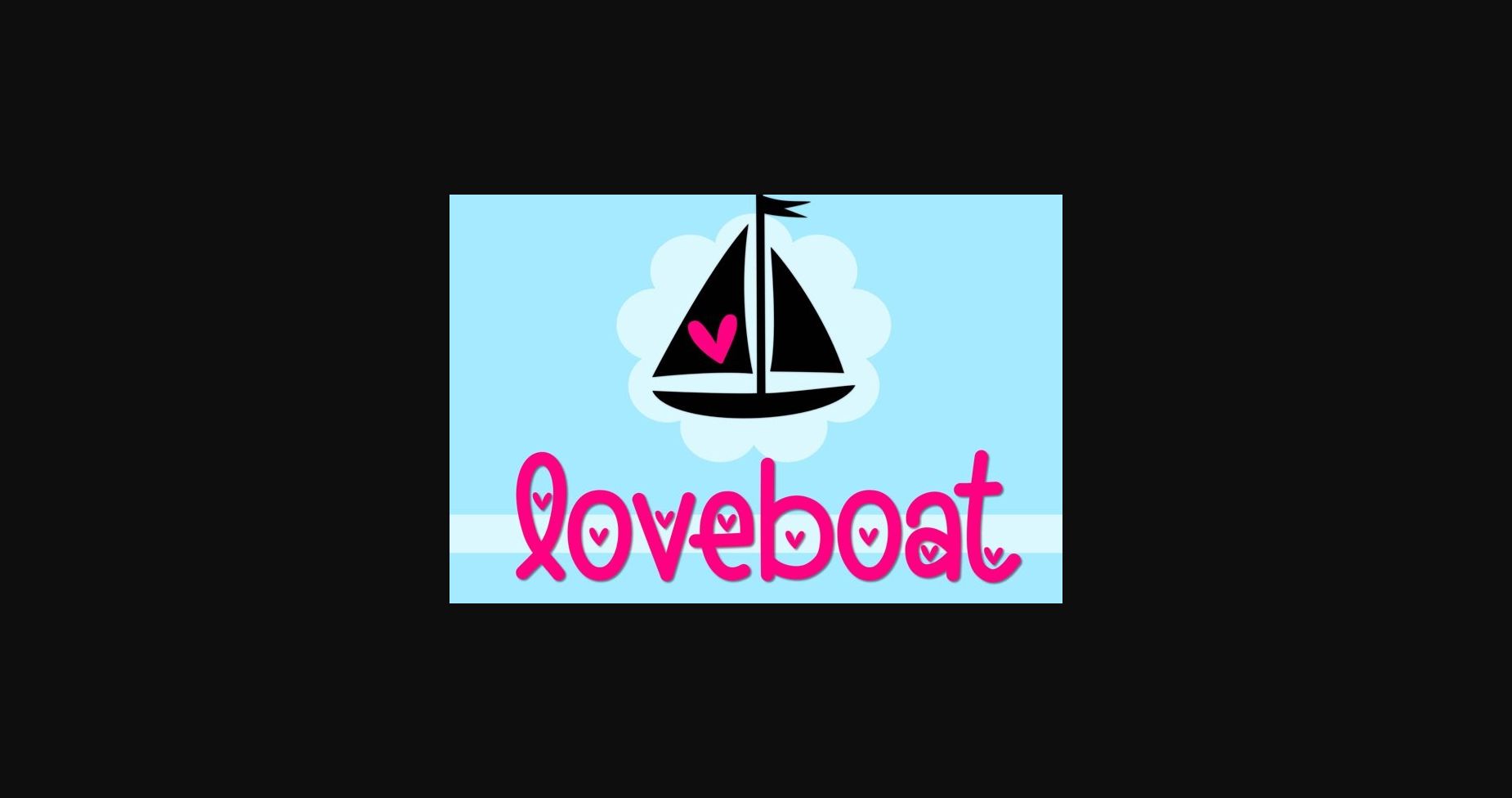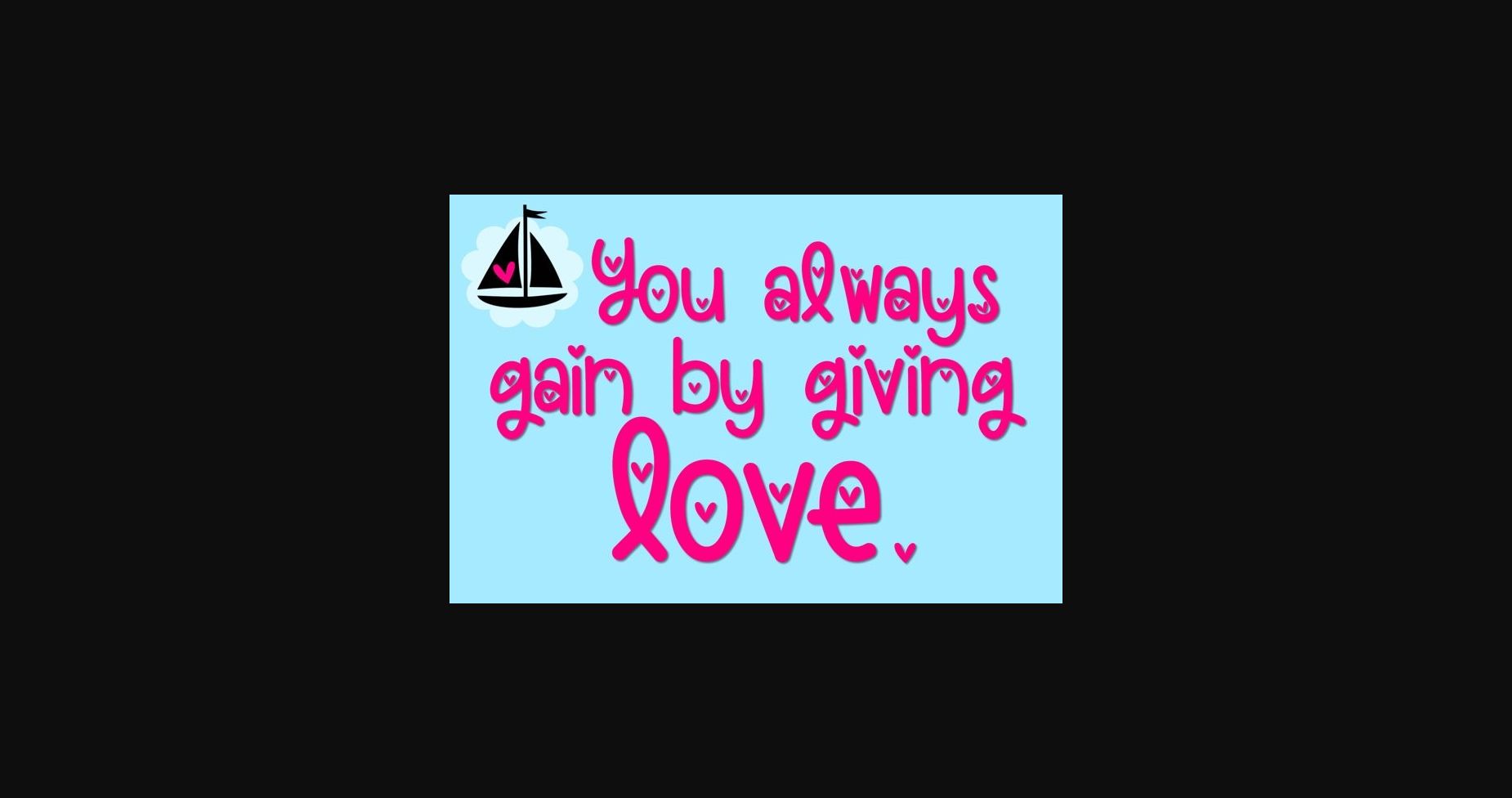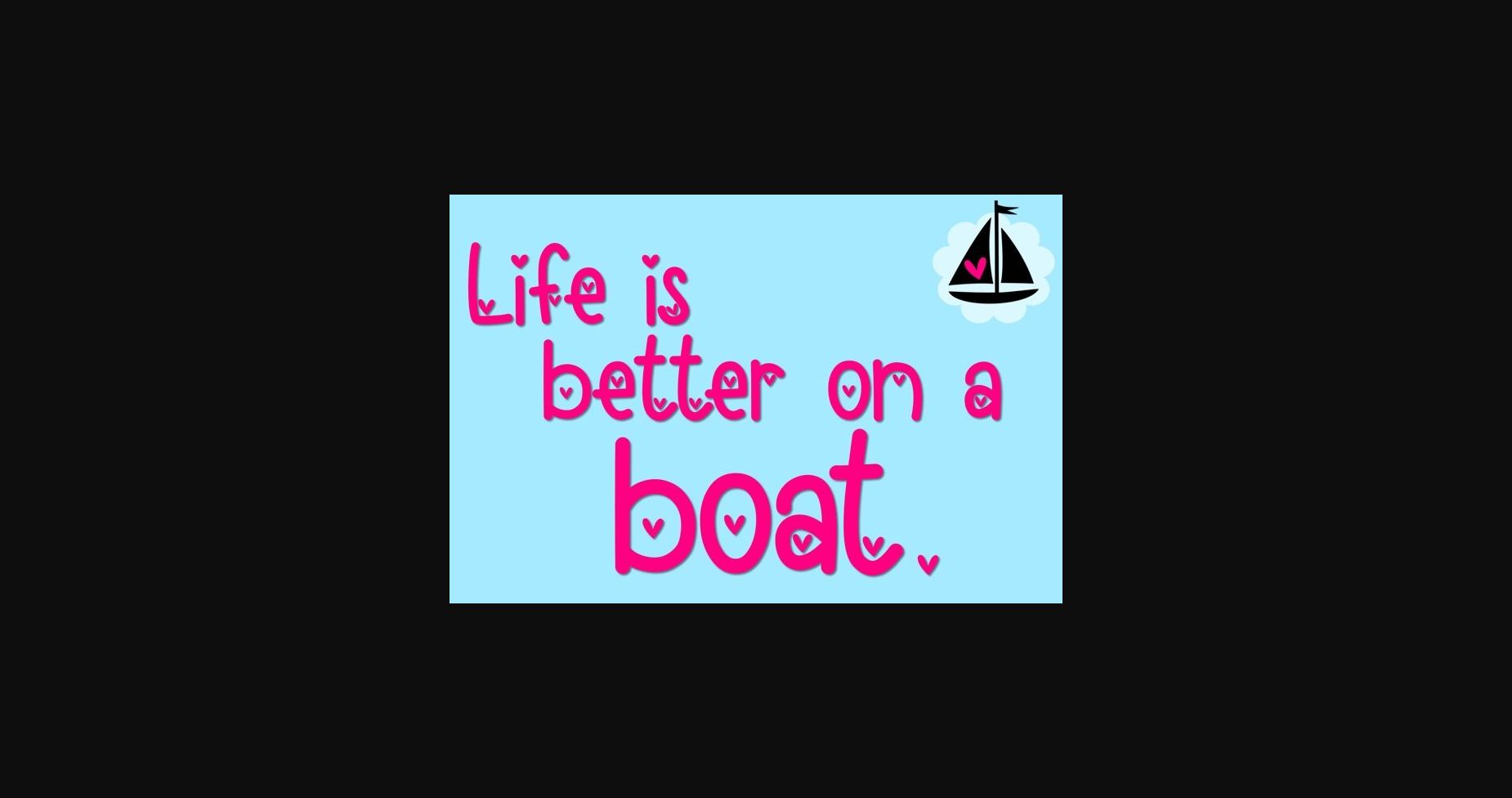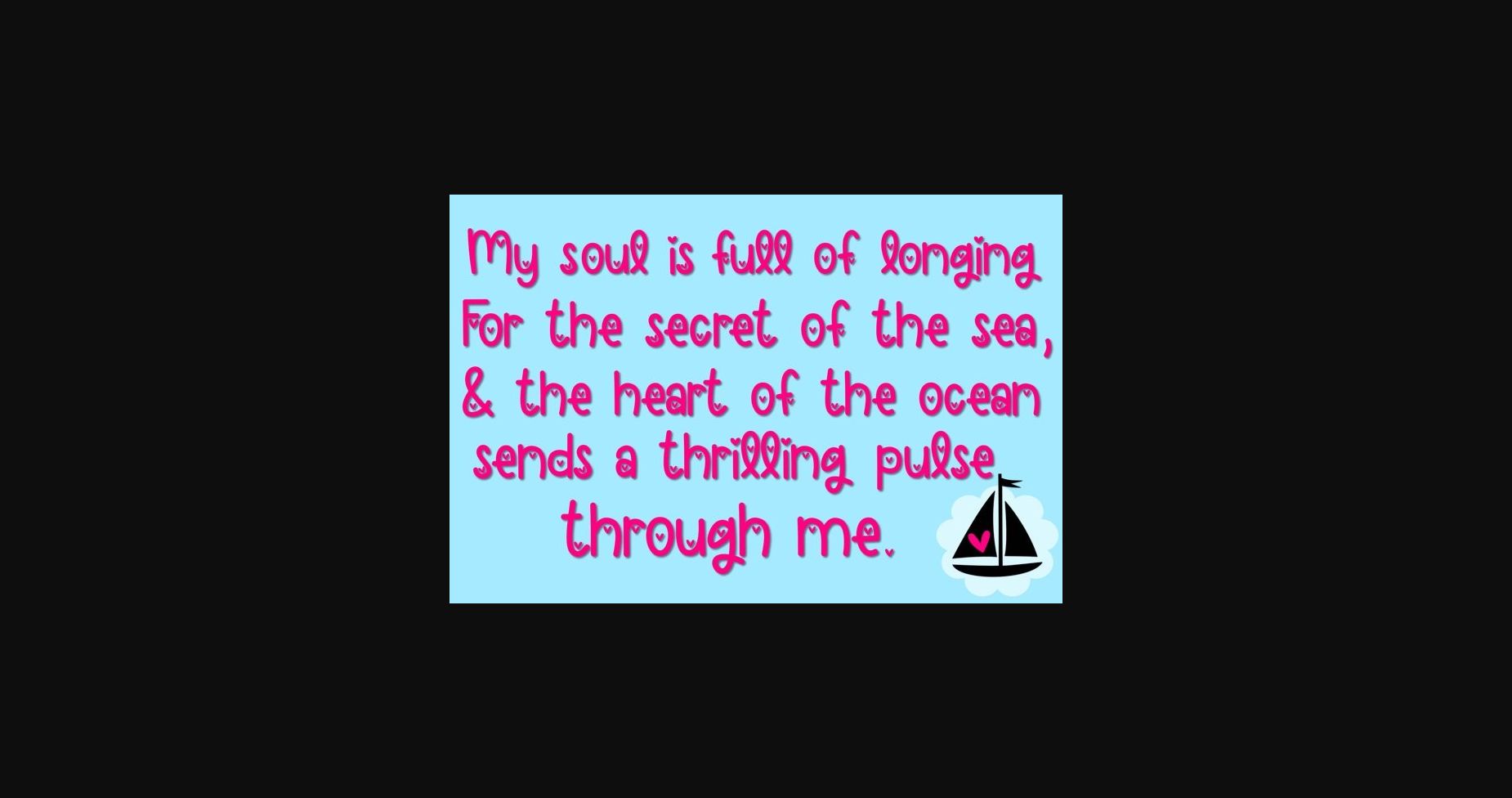
Loveboat Font
About Loveboat Font
Loveboat is a fun and cute handwritten sans serif font that exudes warmth and playfulness. Its rounded letterforms feature a mix of irregular strokes and playful curves, inspired by the natural flow of handwriting. The font’s soft and friendly design creates a sense of approachability and accessibility, making it perfect for anything from wedding invitations to children’s books. Loveboat’s charming and whimsical style is sure to add a touch of cuteness and fun to your project.